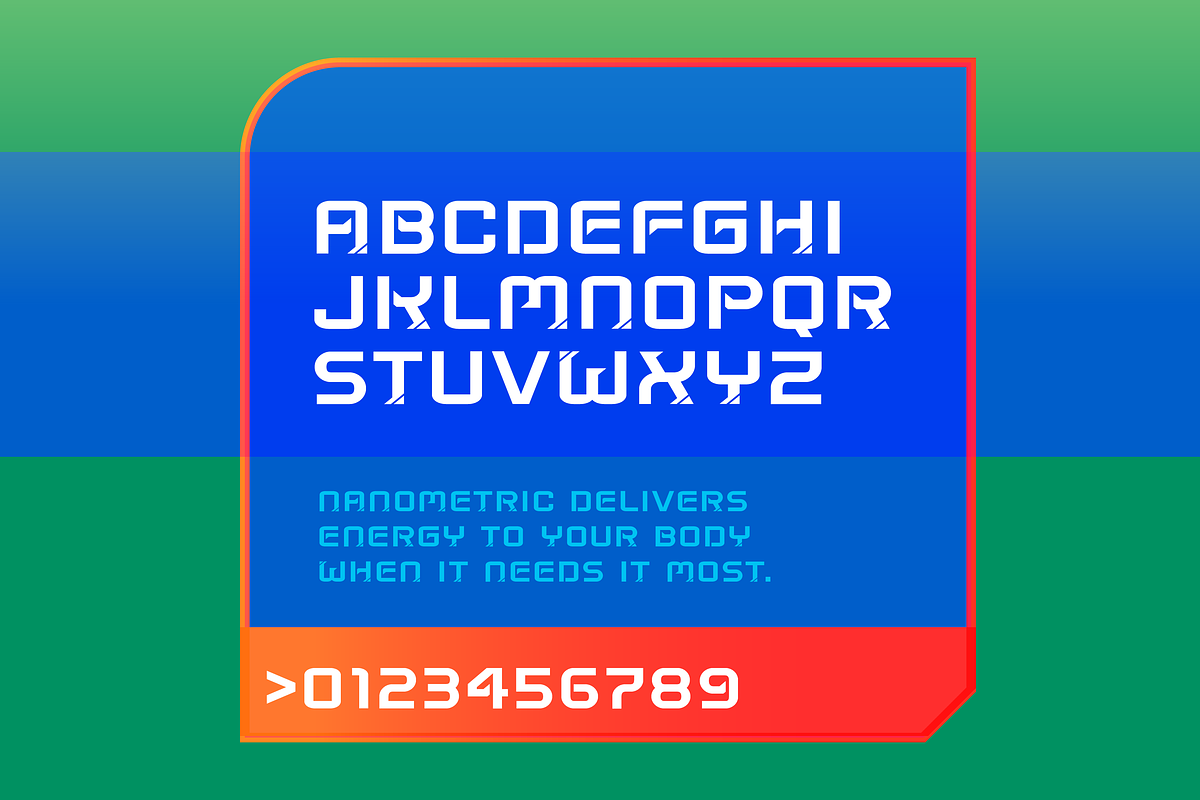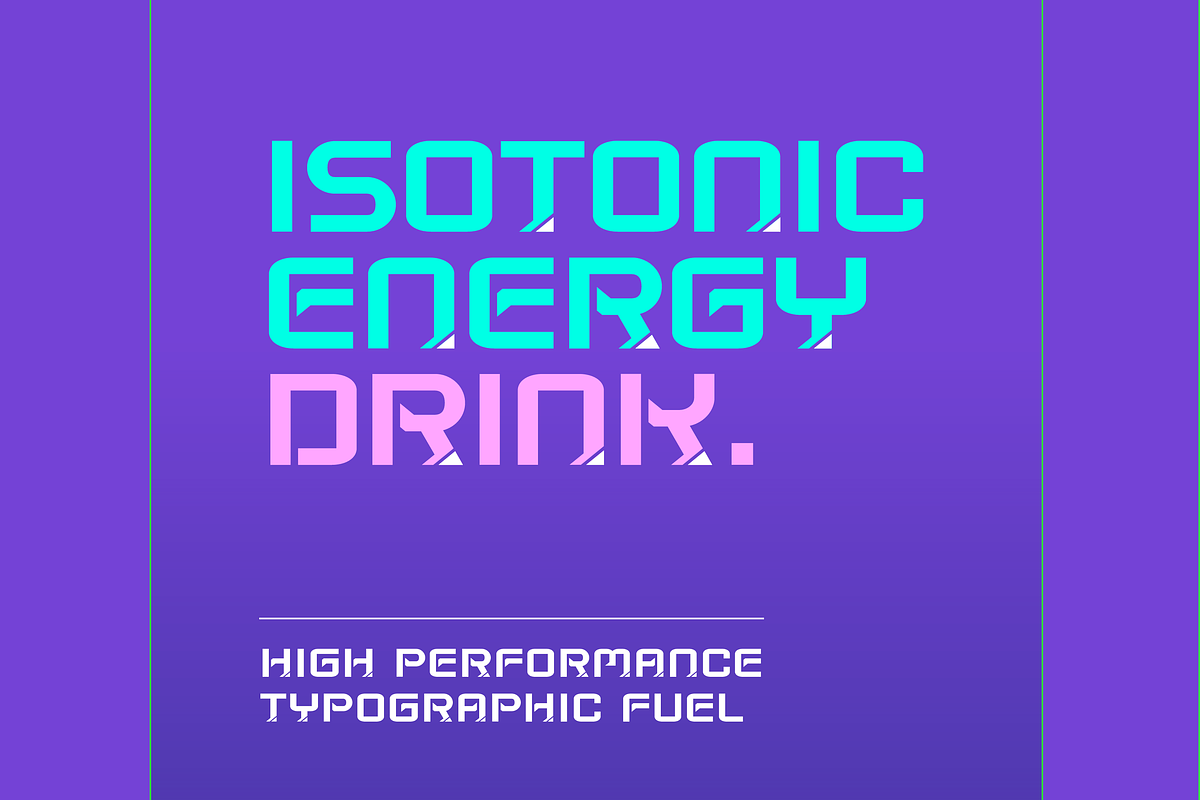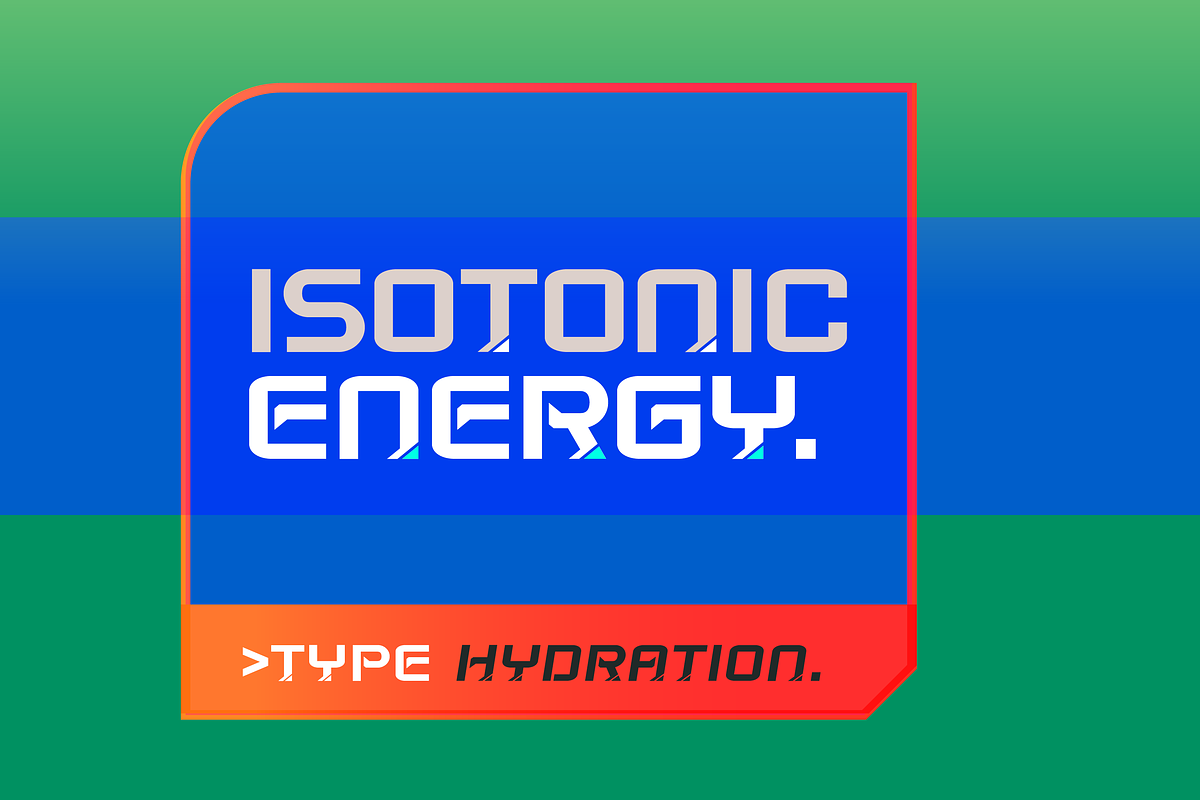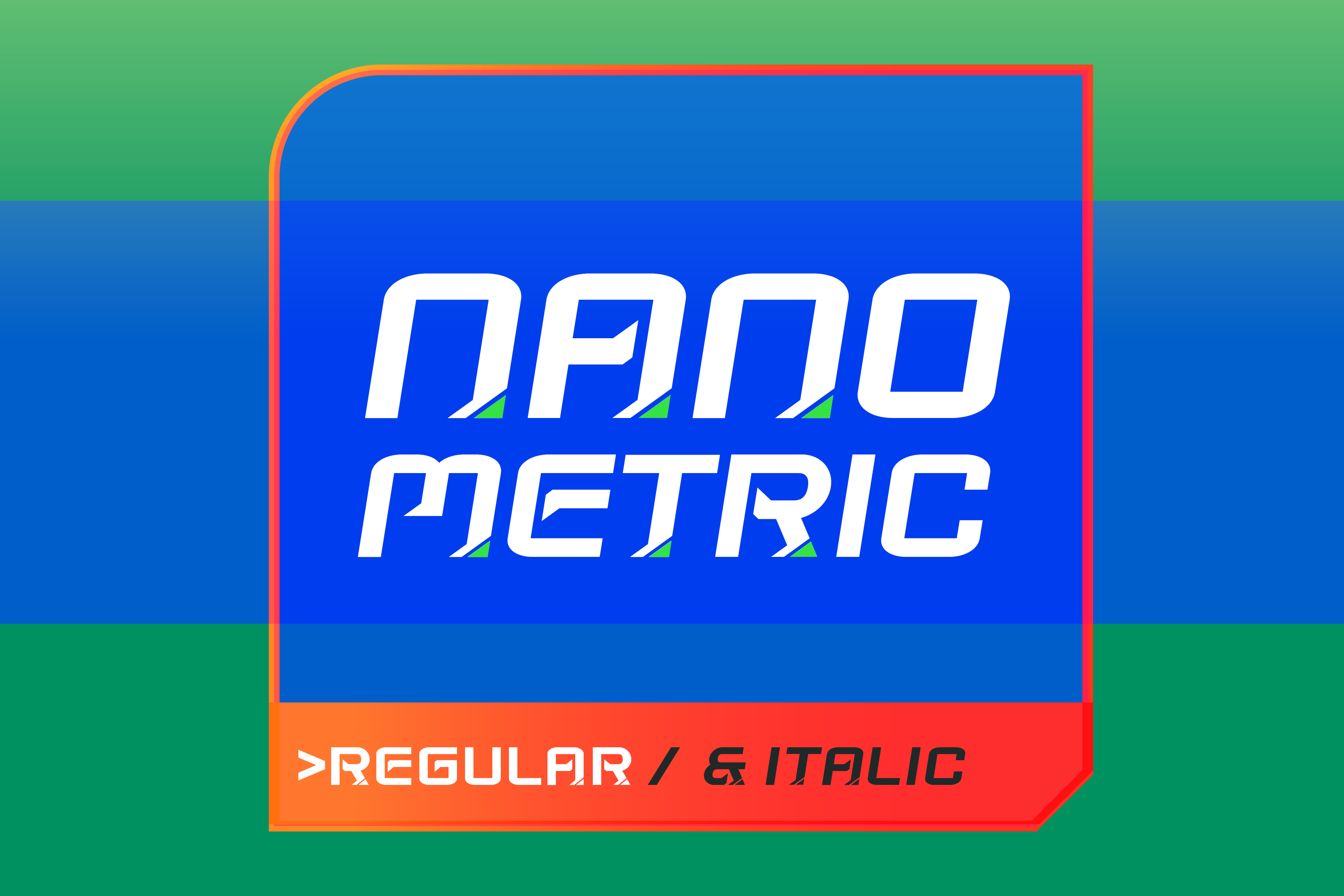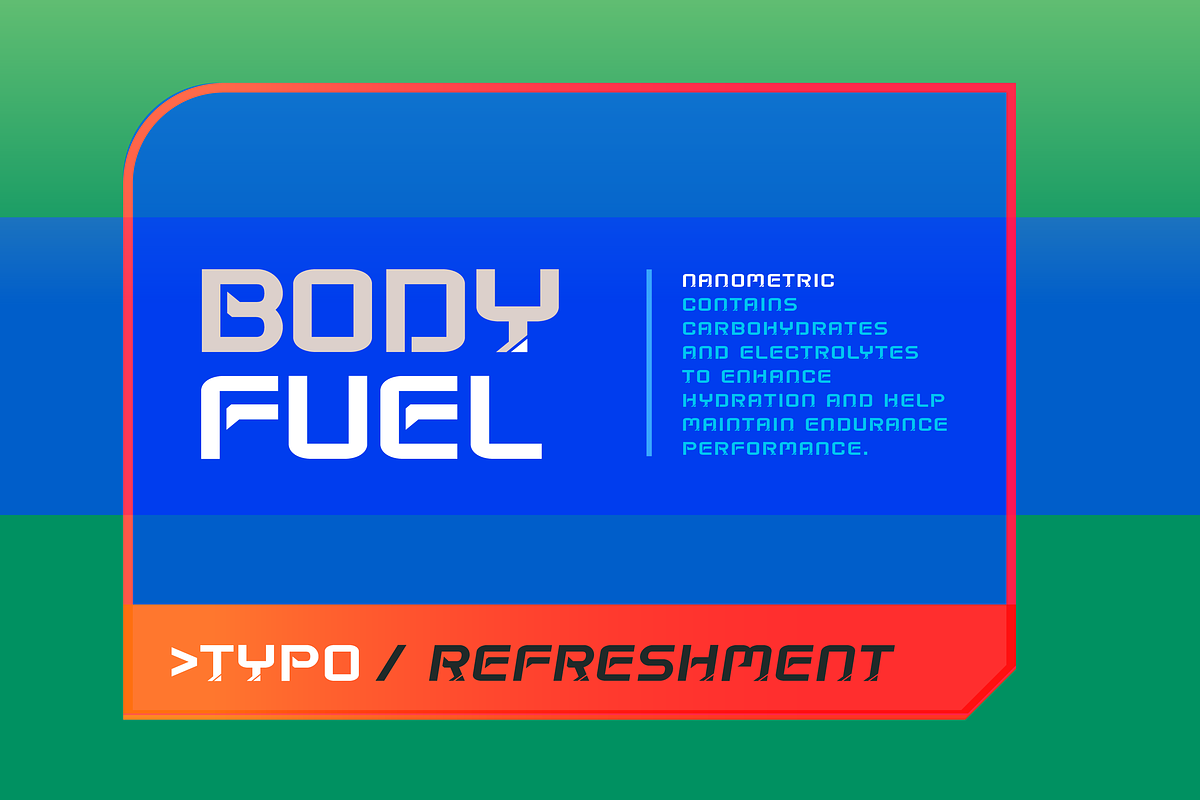
Nanometric Sports Font (2 styles)
SB Nanometric is a technology and sports themed typeface with a highlight font designed to be layered over the main font.
- Italic and Regular versions, both with Highlight overlay versions.